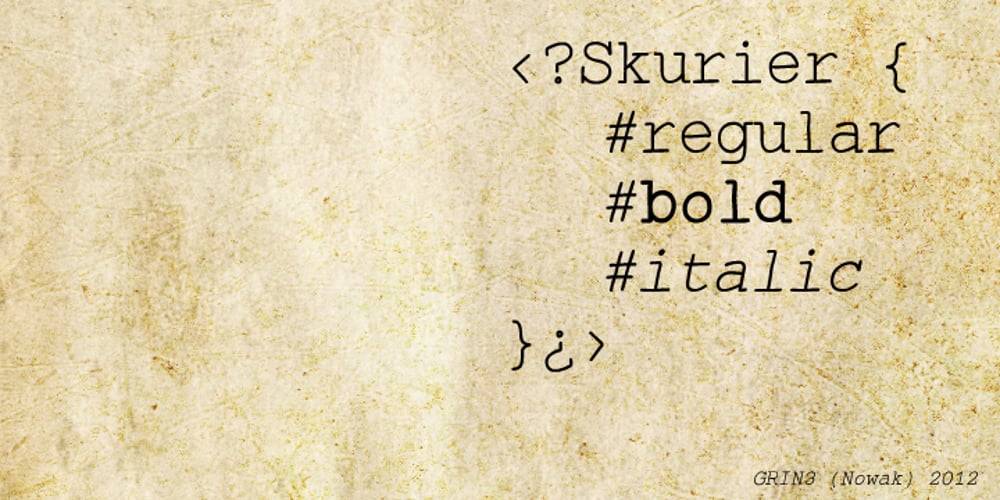
Skurier
Skurier font
Skurier Font Family was designed by Bartek Nowak and published by GRIN3 (Nowak). Skurier contains 3 styles and family package options. Skurier is a hand-drawn font inspired by monospaced fonts like Courier. Language support includes Western, Central and Eastern European character sets, as well as Baltic and Turkish languages.